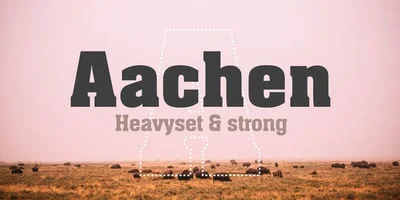
Aachen Font
Aachen Font is perfect for German heritage branding, European cultural projects, historical institution signage, traditional German restaurant designs, Oktoberfest event posters, medieval castle tour materials, German engineering company logos, European museum displays, traditional brewery branding, and cultural festival graphics that celebrate authentic German tradition and architectural heritage.
This font is exciting because it embodies the timeless strength and architectural precision of German design tradition with bold, sturdy letterforms that reflect the enduring craftsmanship and cultural heritage of historic Aachen and the greater Germanic region. Aachen Font features robust construction and traditional proportions that evoke centuries of German artistic excellence while maintaining contemporary functionality for modern branding applications.
Aachen Font family includes Regular, Bold, Light, Medium, Condensed, Extended, Gothic, and Traditional versions, plus German symbols, cultural ornaments, architectural elements, and European flourishes that enhance the authentic Germanic aesthetic and provide comprehensive design solutions for heritage and cultural projects.
For authentic German heritage and cultural design projects, Aachen Font delivers exceptional traditional character and cultural authenticity. The font's robust letterforms and Germanic design make it perfect for cultural institutions, German businesses, and heritage organizations seeking to communicate tradition, quality, and European cultural values. Its strong, reliable appearance appeals to audiences appreciating craftsmanship, heritage, and time-tested excellence. The character set includes German-specific characters and cultural symbols that meet European typography standards. Professional designers appreciate its ability to convey both strength and cultural sophistication while maintaining excellent readability across heritage marketing, cultural publications, and traditional German brand communications, making it essential for organizations that want to celebrate Germanic heritage and communicate the enduring values of German craftsmanship and cultural excellence.